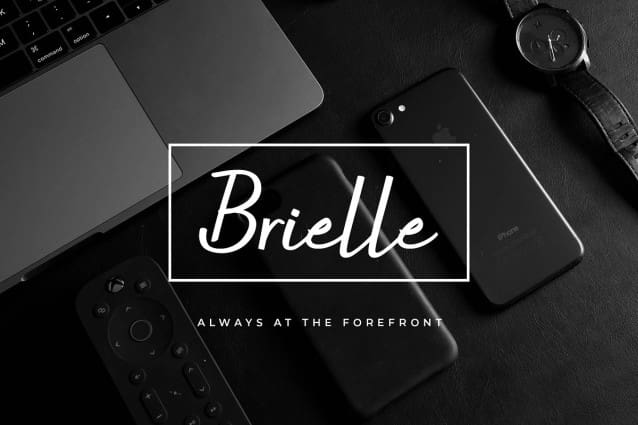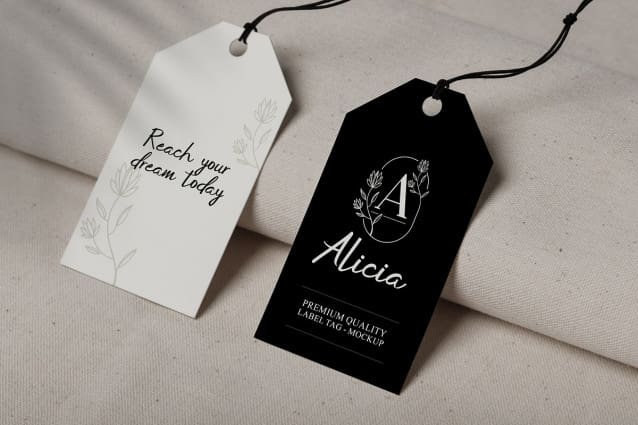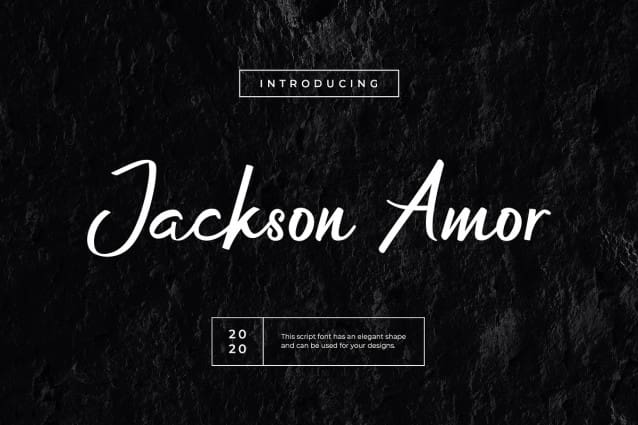
Jackson Amor Font
Jackson Amor Handwritten Script. Modern signature font that feels beautiful classy, elegant, and modern .This font is perfect suited for a wide variety of projects, as to signature, stationery, logo, wedding, typography quotes, magazine or book cover, website header, branding and more. Also for fashion related branding or editorial design and displays both masculine and feminine qualities.